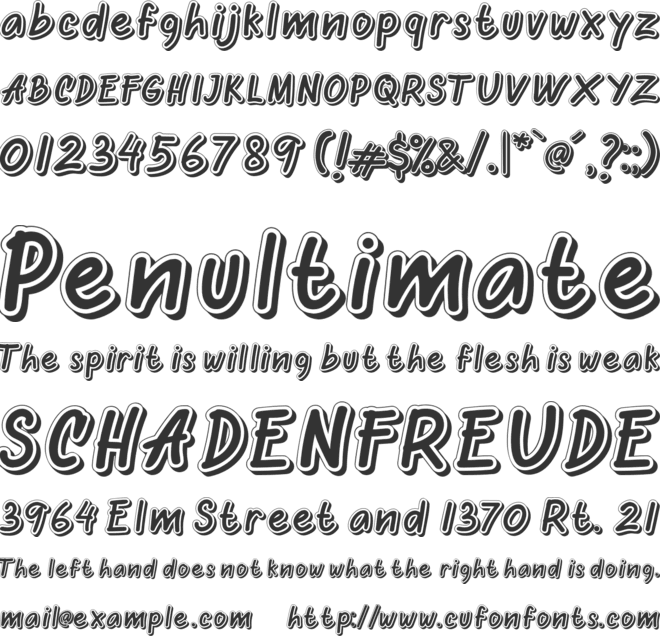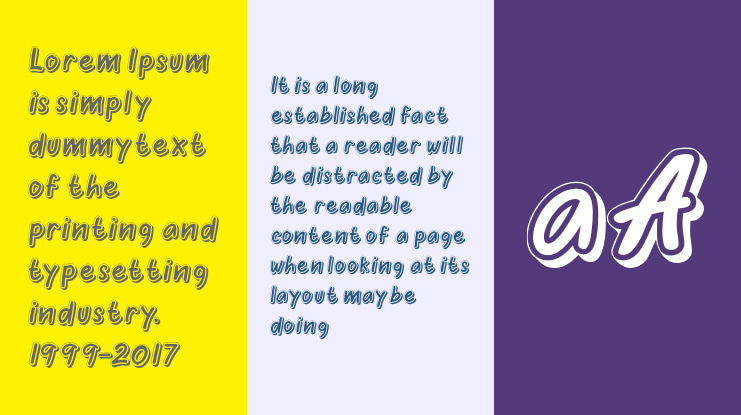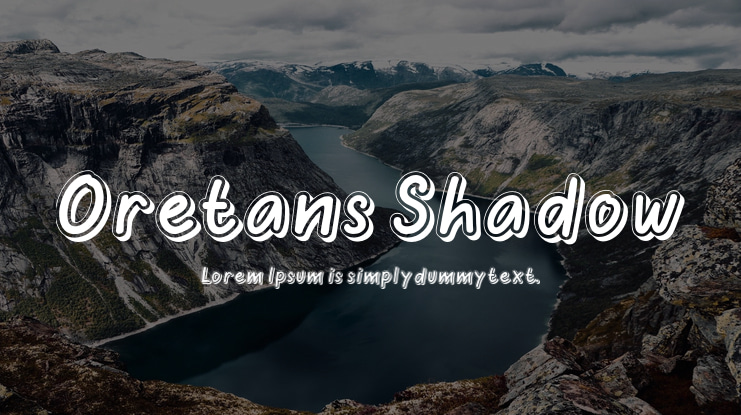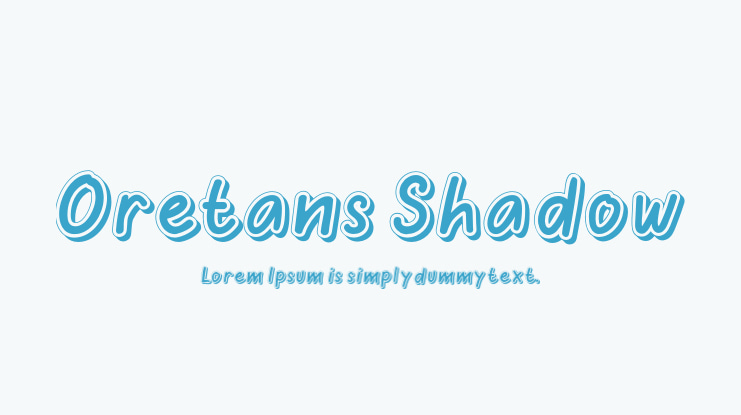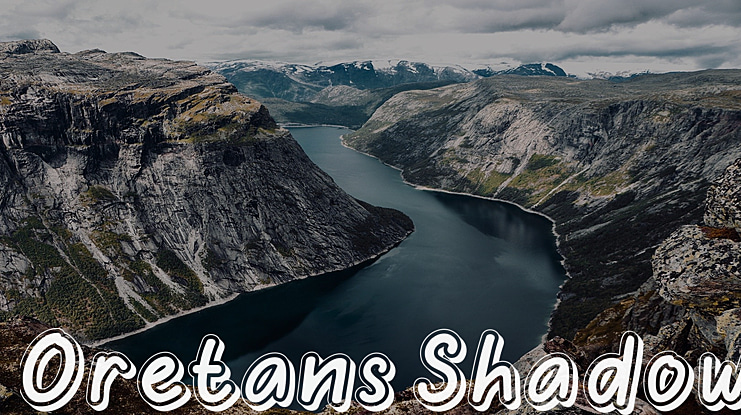
Oretans Shadow Font Family
Introducing Oretans, it's a typeface inspired by handwritten scratches, a simple, straightforward and childish. This letter is equipped with a 3D style that is suitable for your display letter needs, available in TTF and OTF formats and also comes with multi-language features.